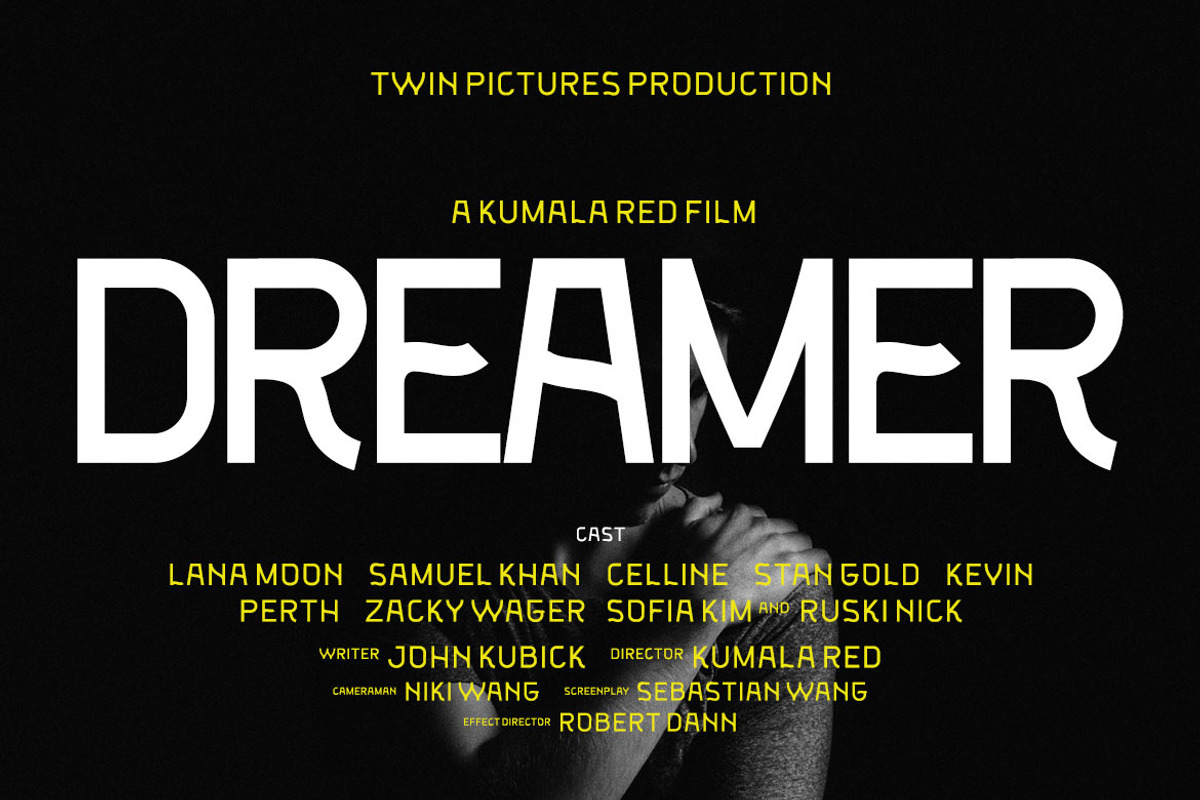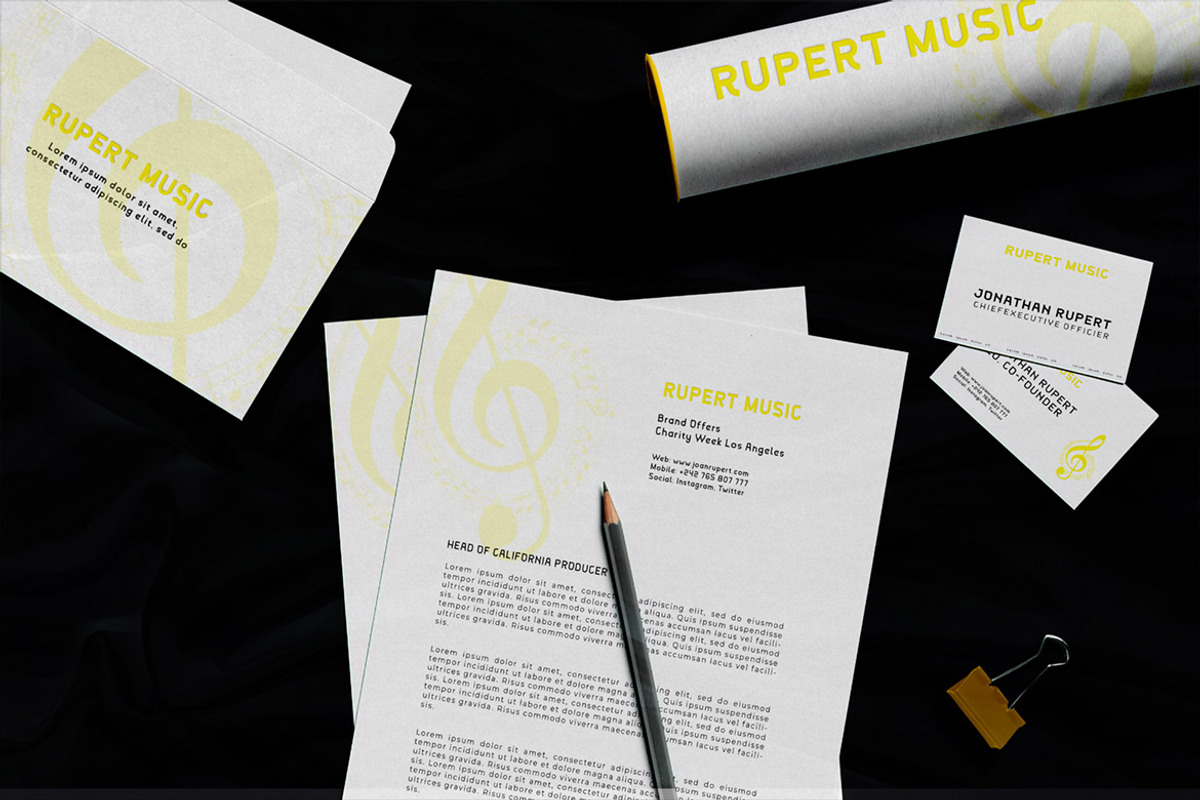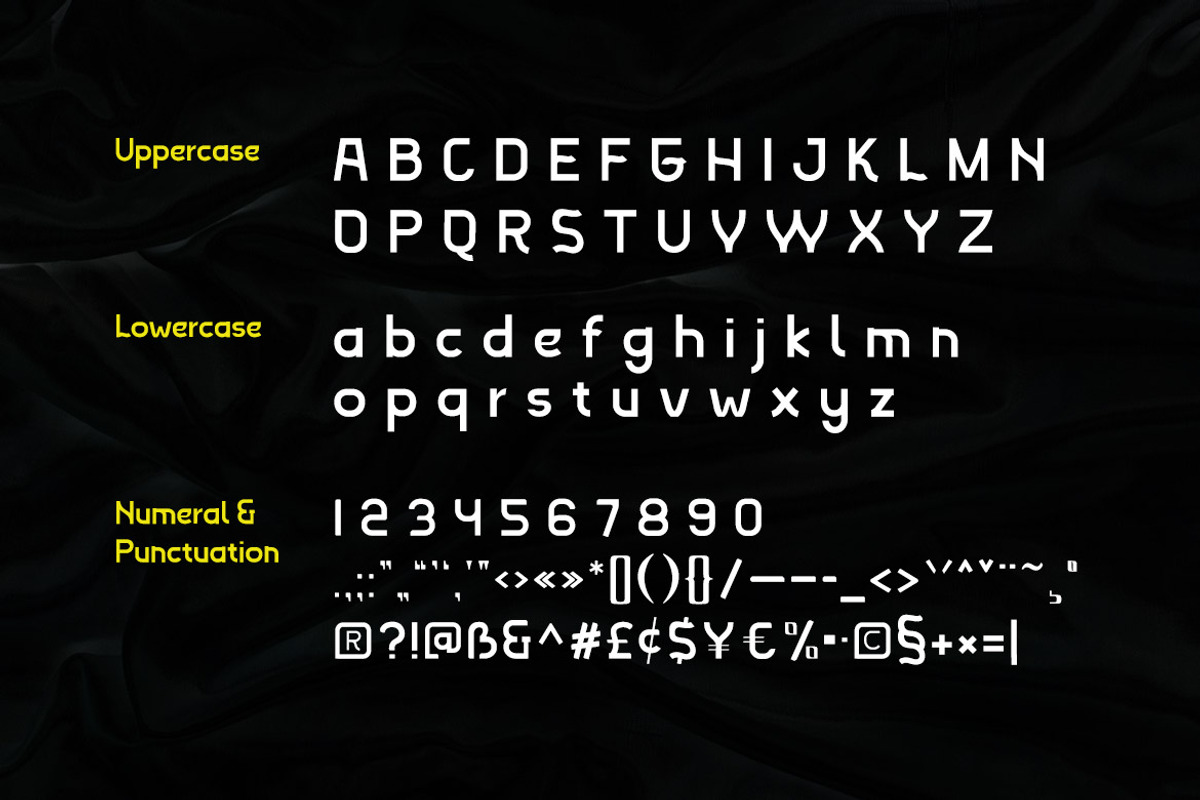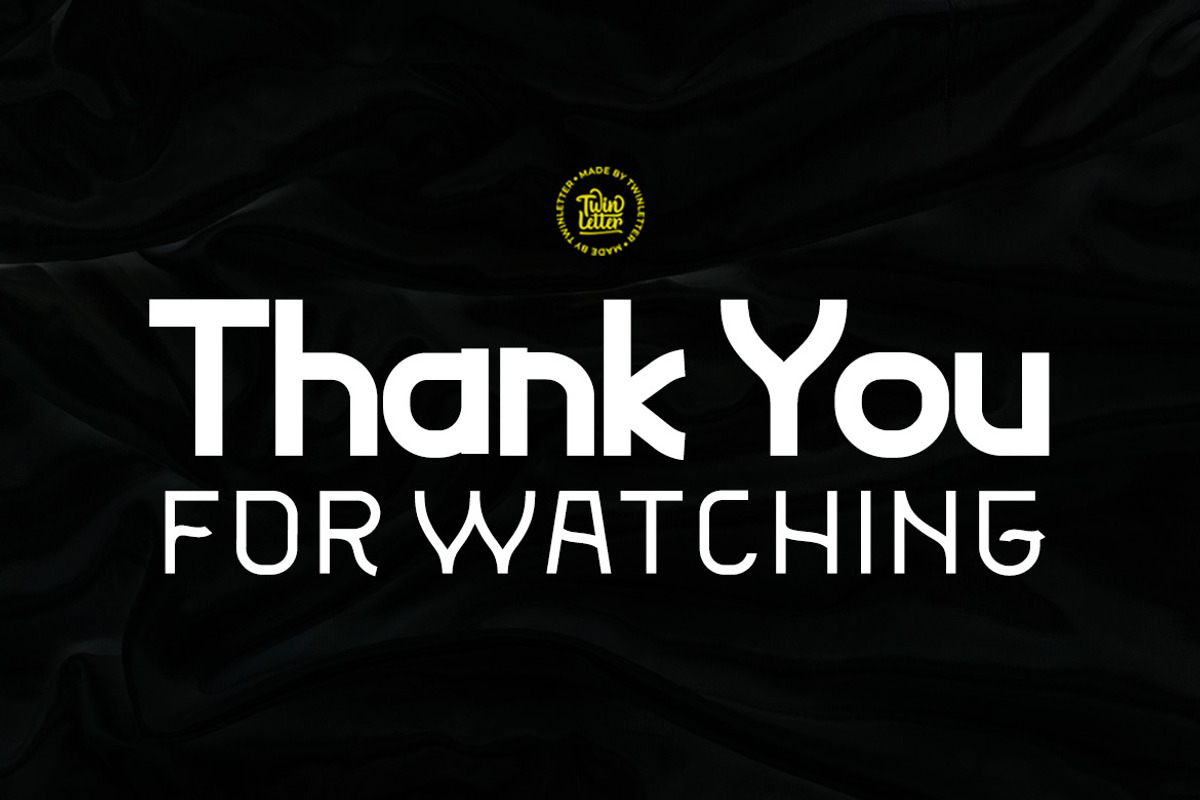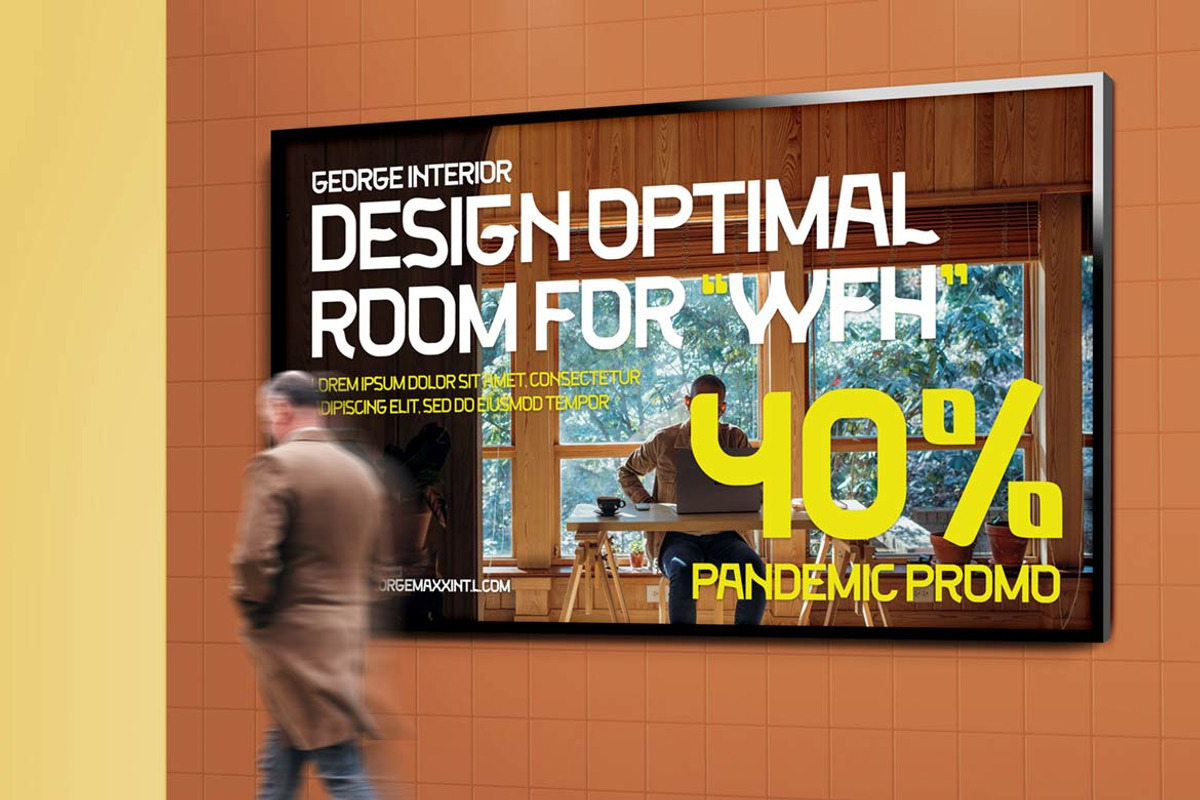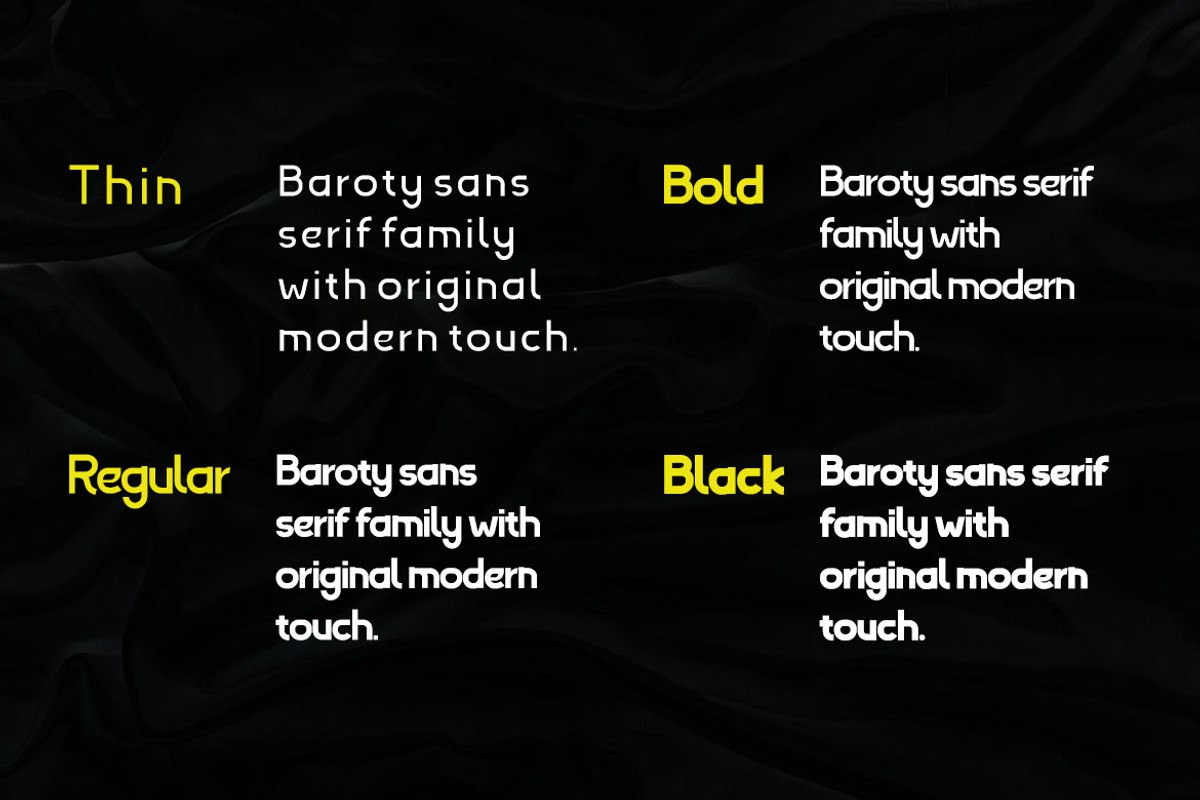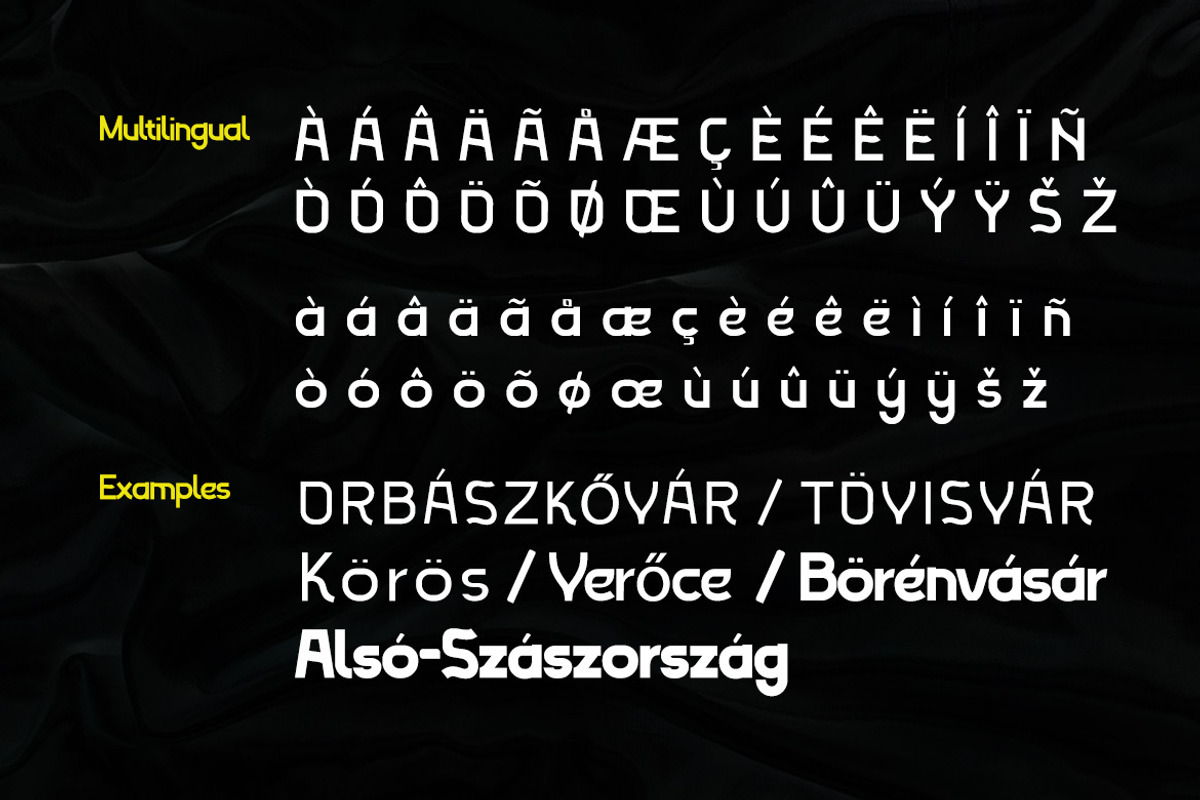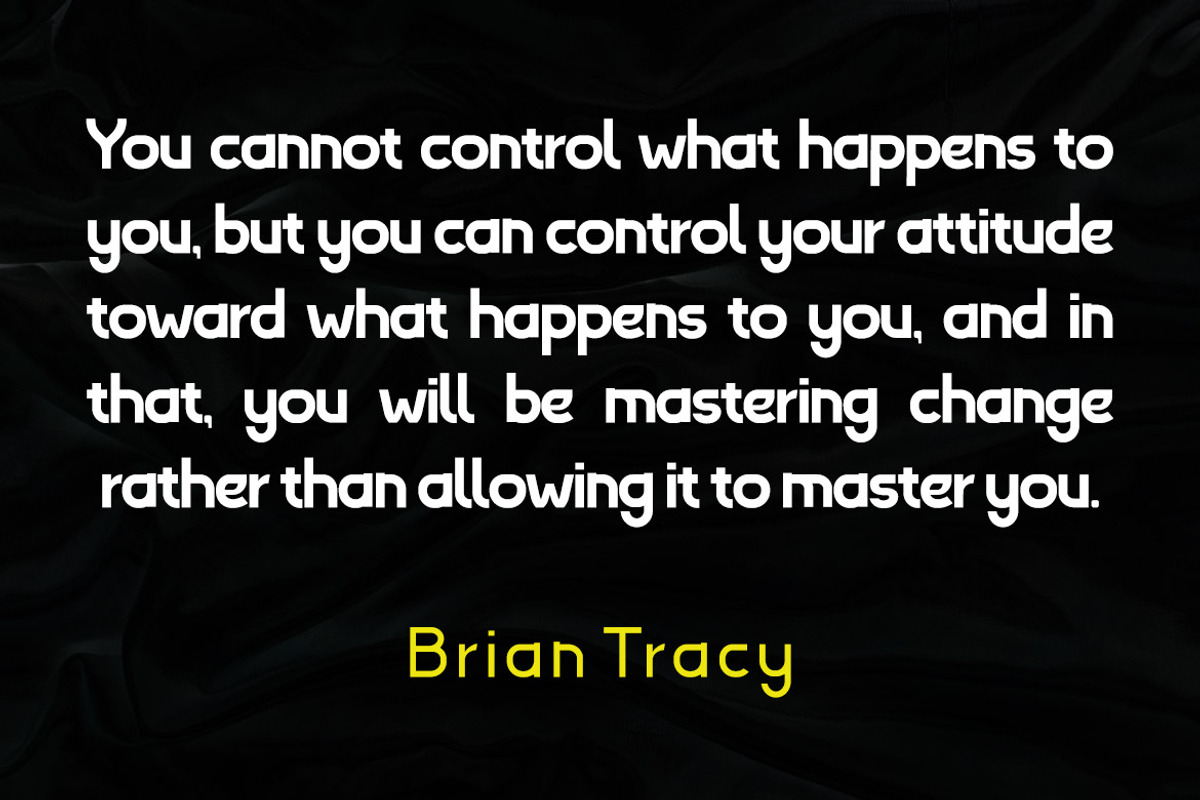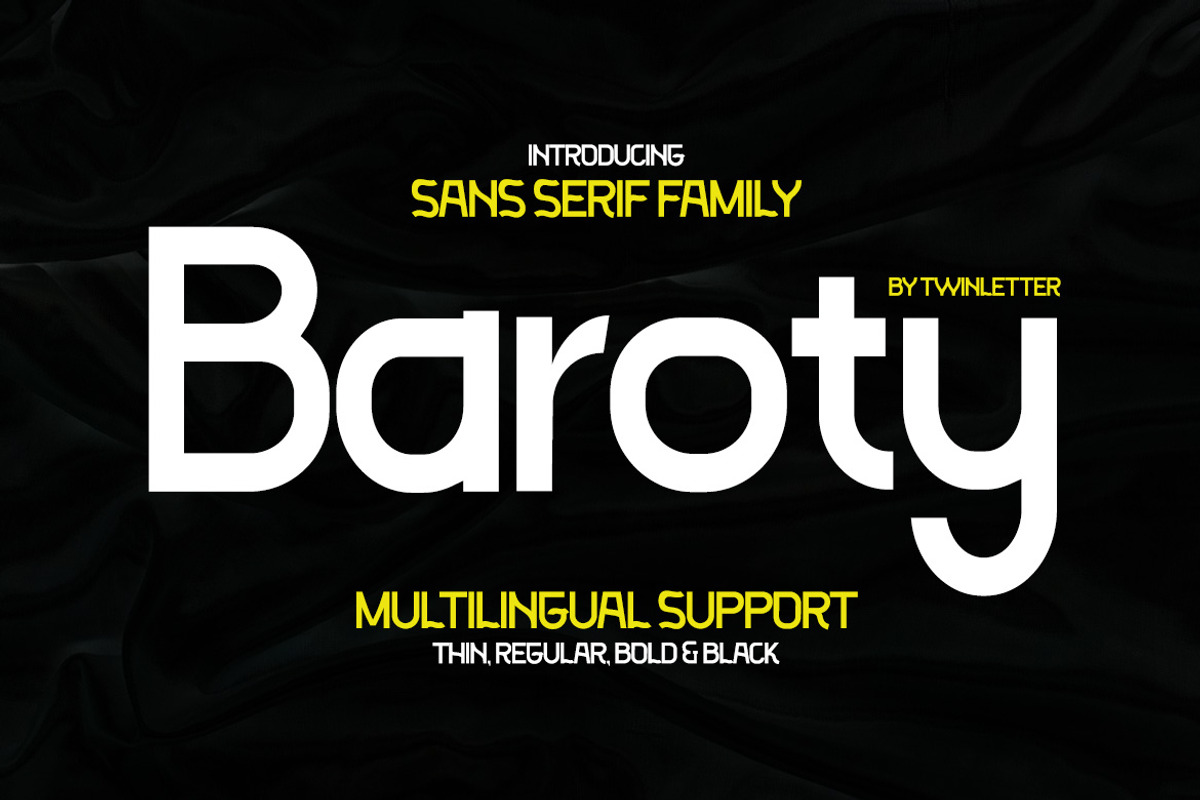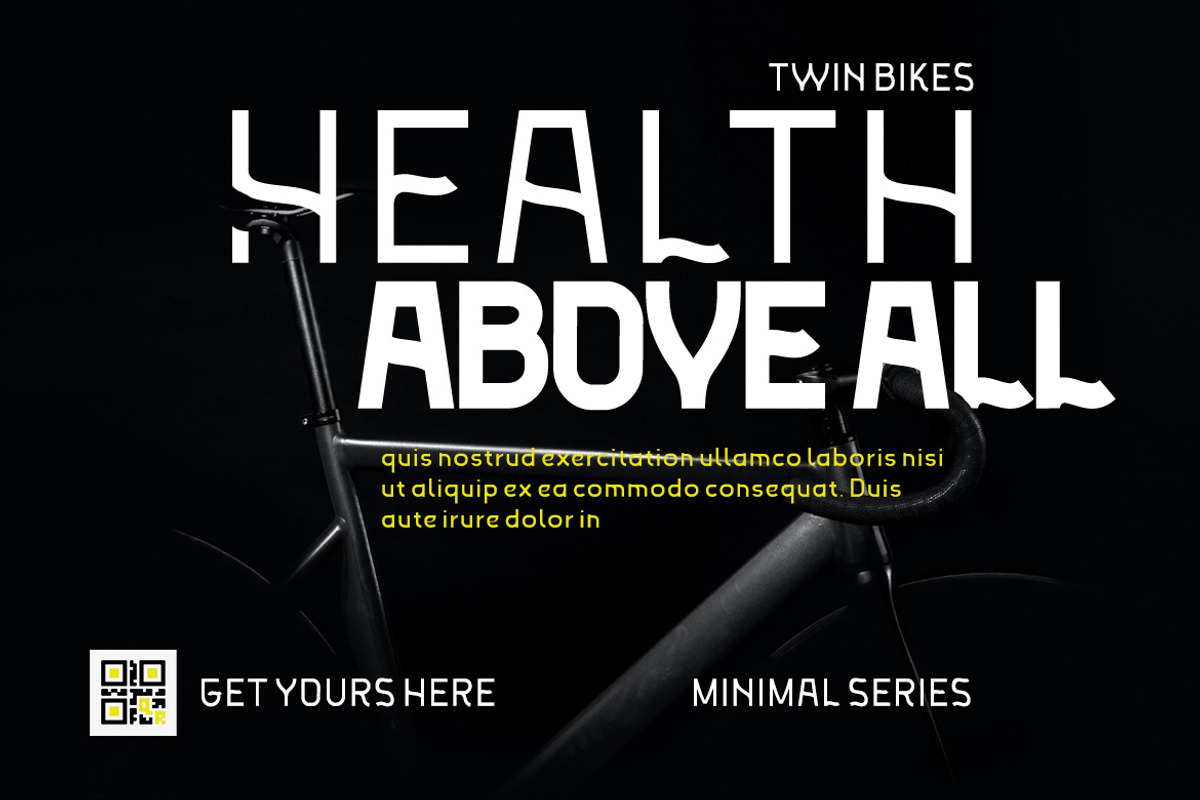
Baroty
Baroty is a modern sans serif font that we made with great care to make your project beautiful and perfect, to make your project look unique and different from the rest. By using this typeface, you may anesthetize the entire audience, allowing them to remember your project easily and firmly.
of course, your various design projects will be perfect and extraordinary if you use this font because this font is equipped with a font family, both for titles and subtitles and sentence text, start using our fonts for your extraordinary projects.